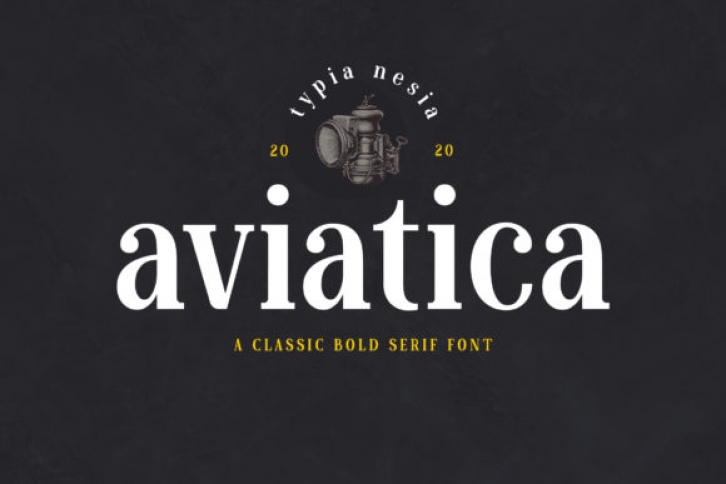
Aviatica is a bold and simple lettered serif font. It can easily be matched to an incredibly large set of projects, so add it to your creative ideas and notice how it makes them stand out!